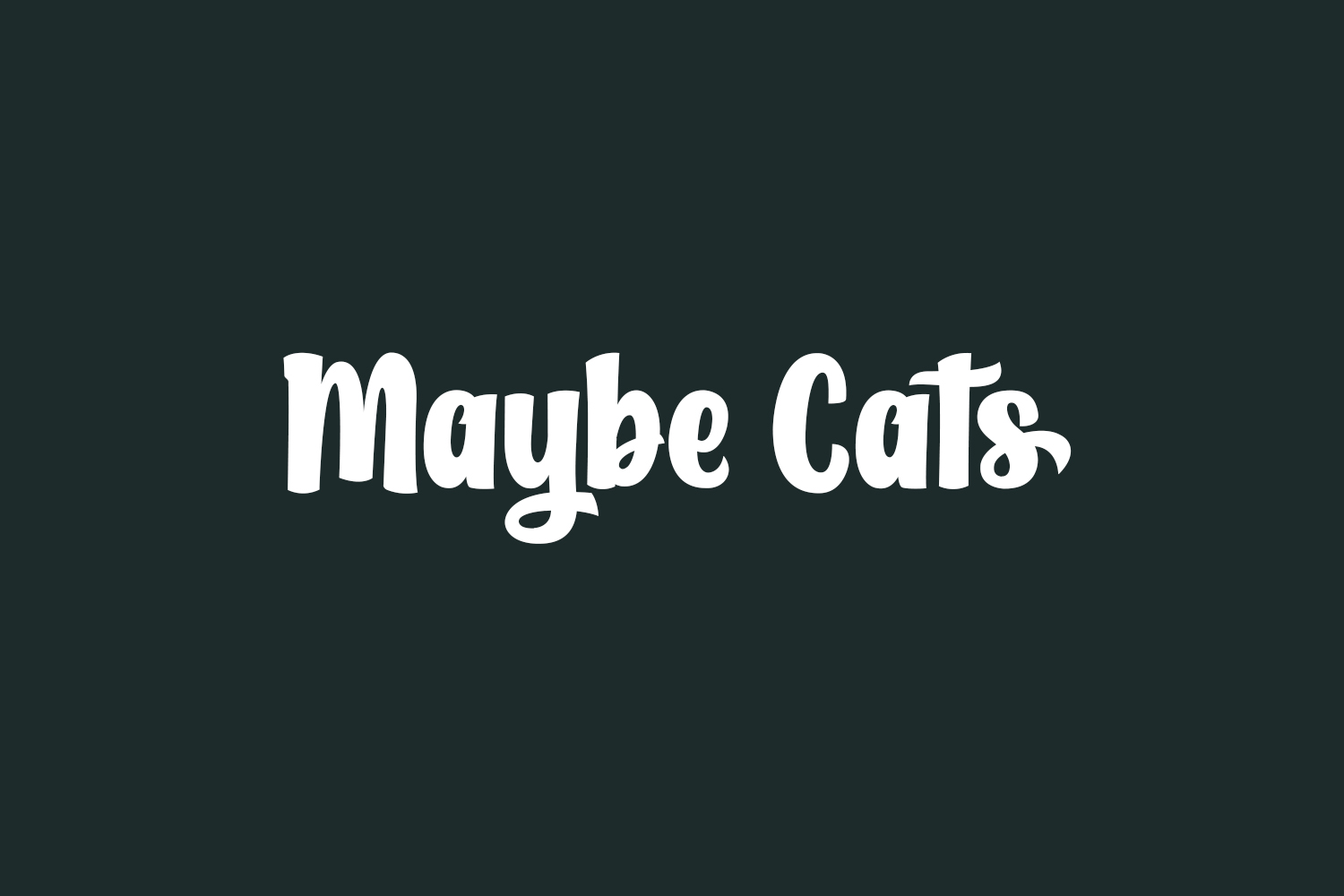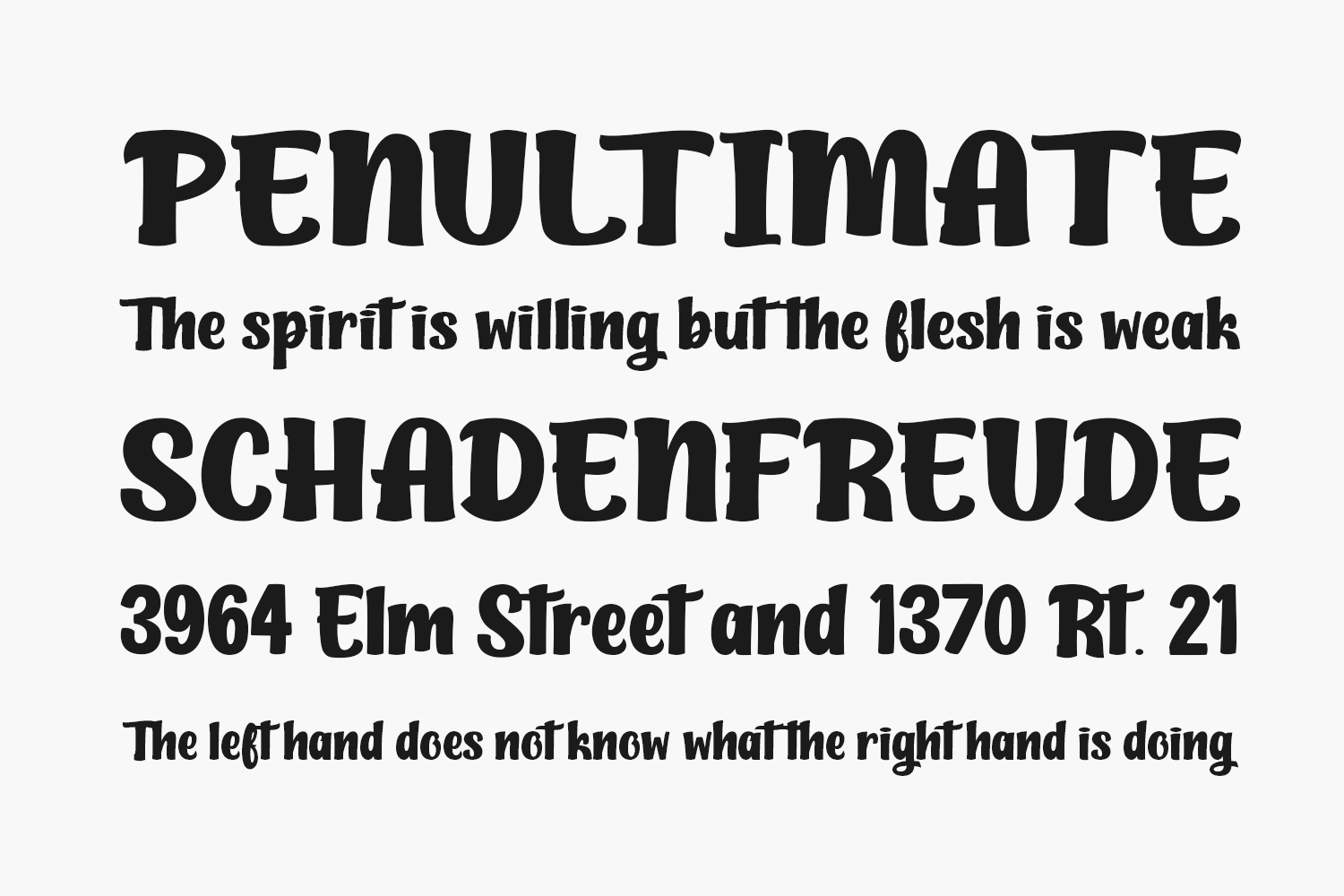
Maybe Cats Free Font is perfect for logos, name tags, advertising, product packaging, clothing, social media & greeting cards. Maybe Cats Free Font was designed by Typhoon Type™ and is free for personal use only. Please purchase the full version for commercial use.